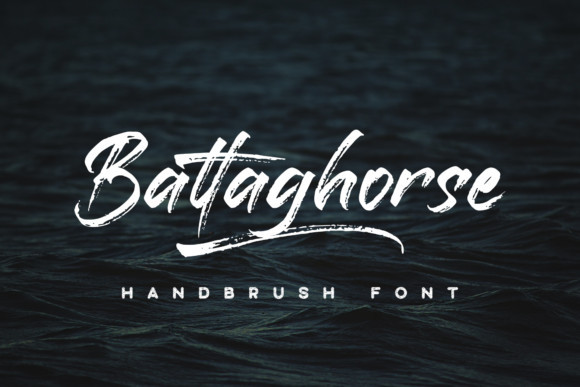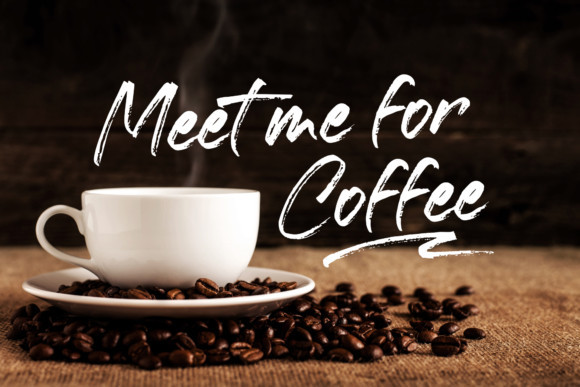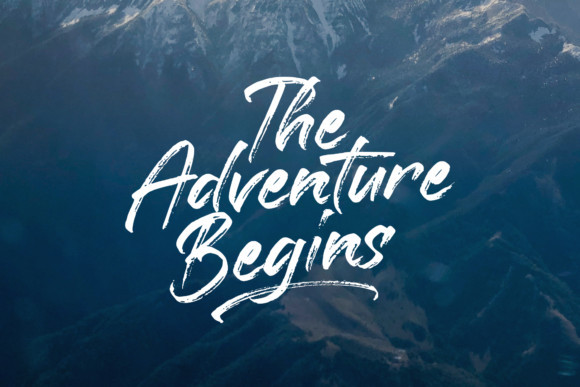
Battaghorse Font
Battaghorse is a fast writing brush script with textures and swashes. Use it for any design project that requires a personalized appearance!